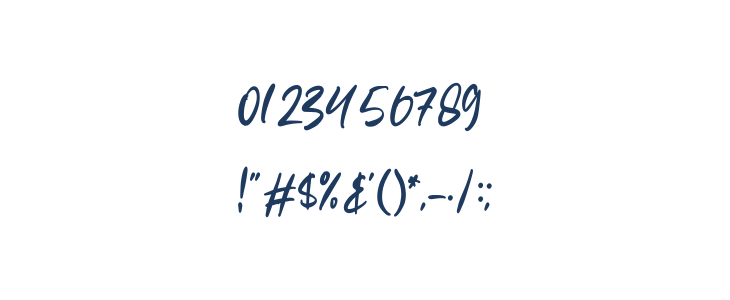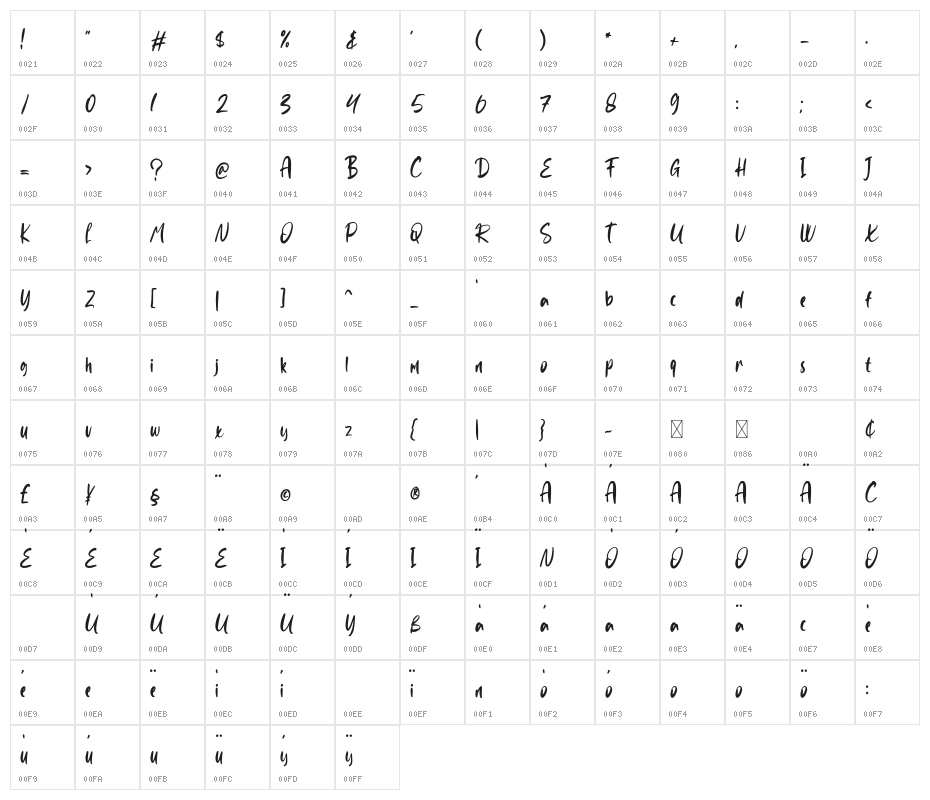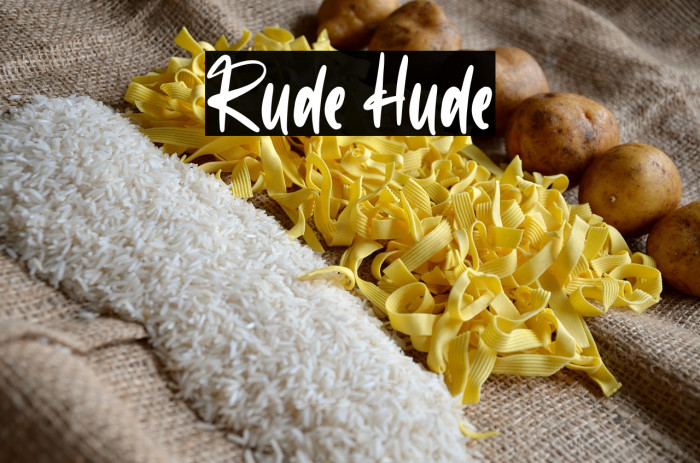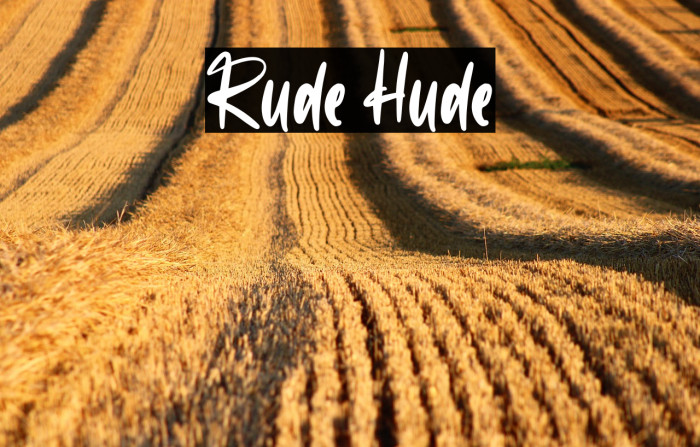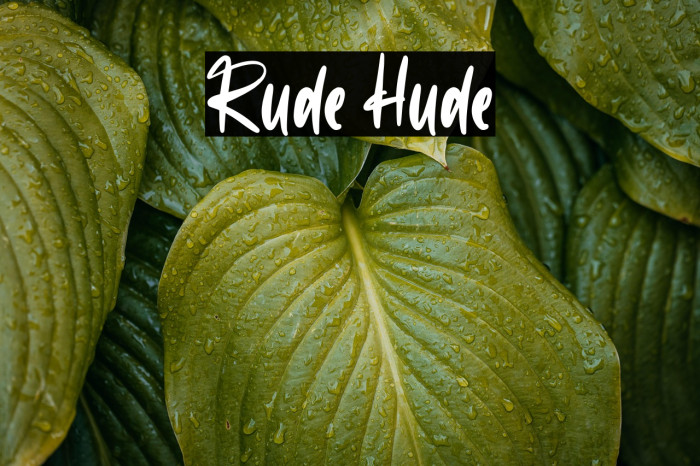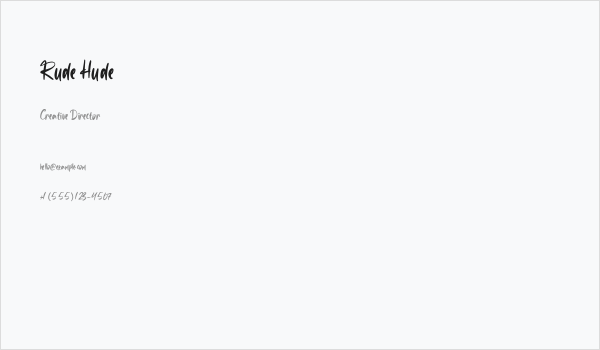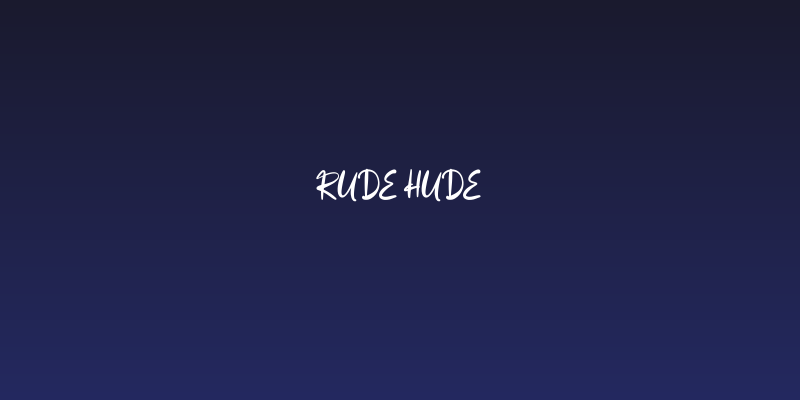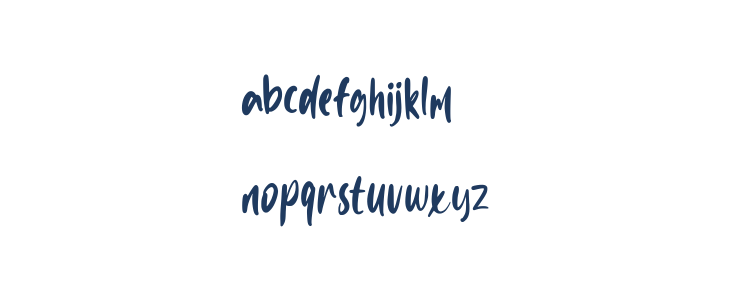
Rude Hude Font
Rude Hude Description
This font features a lively and dynamic handwritten style, characterized by its fluid and slightly irregular strokes. The letters have a playful and casual appearance, with a natural flow that mimics the look of brush lettering. The uppercase and lowercase letters maintain a consistent style, with rounded edges and varying stroke widths that add to its informal charm. The numerals and special characters are designed with the same energetic flair, making them cohesive with the alphabet. This font is perfect for projects that require a personal touch, such as invitations, greeting cards, or creative branding.